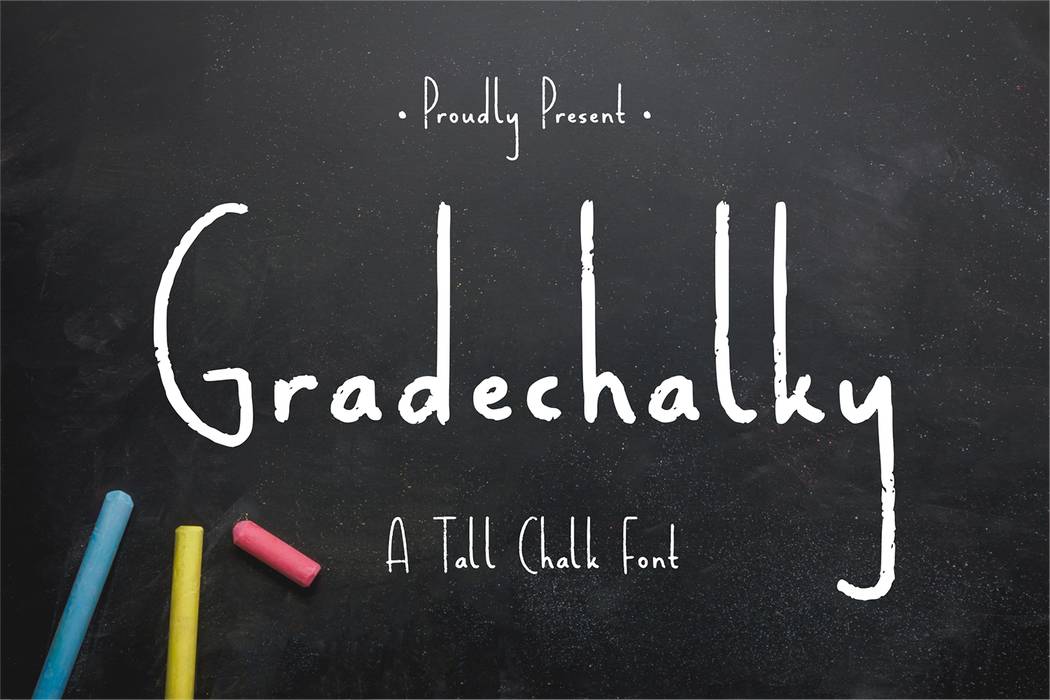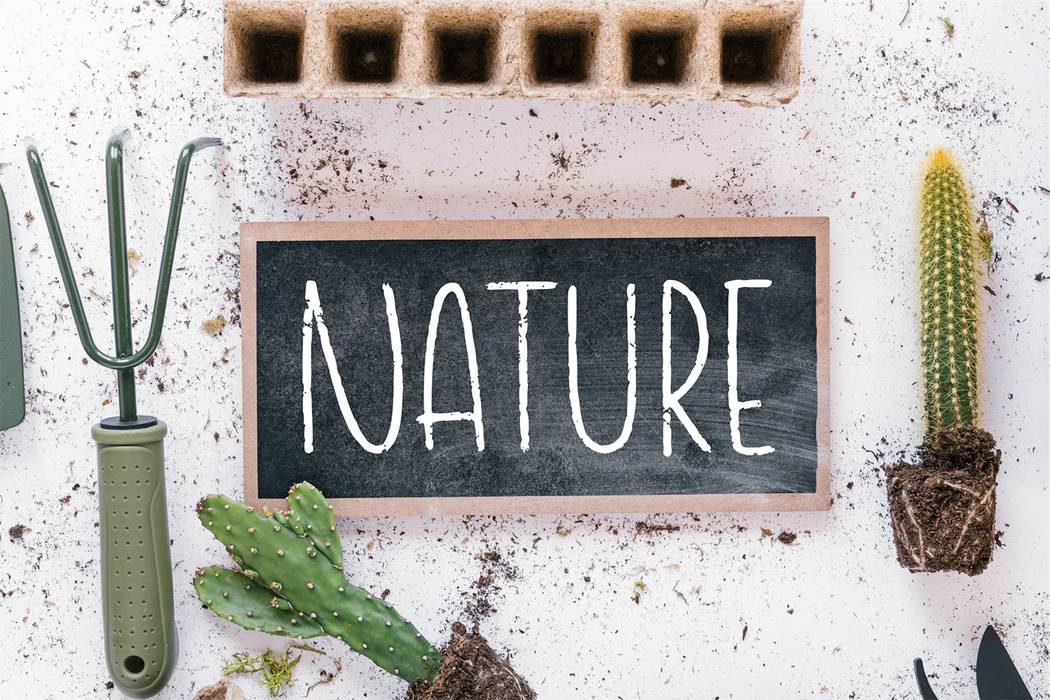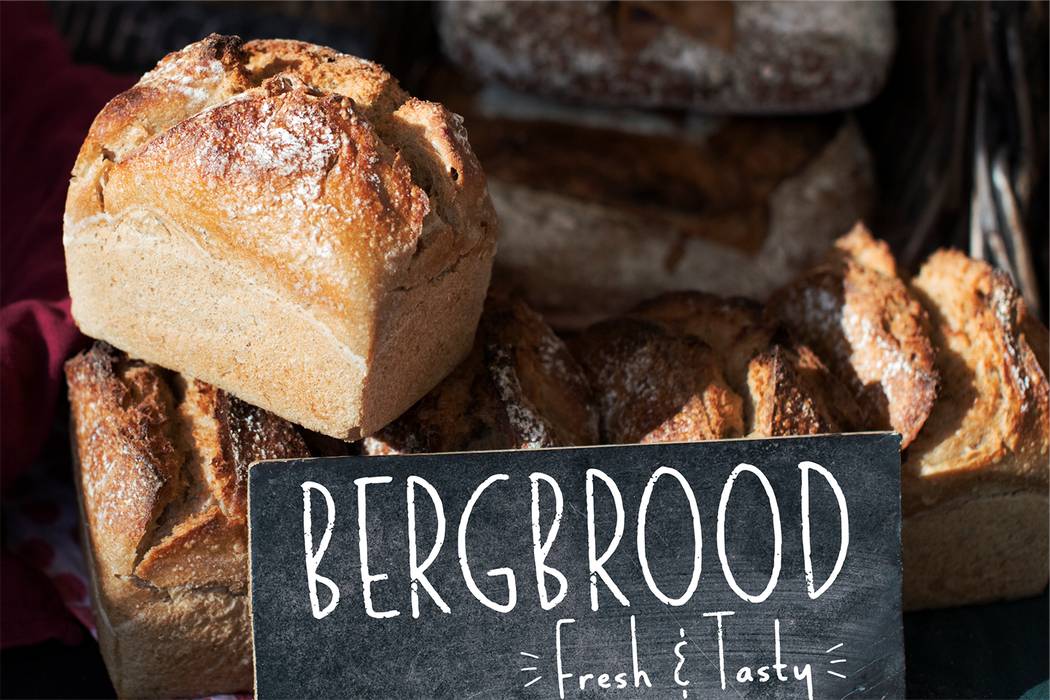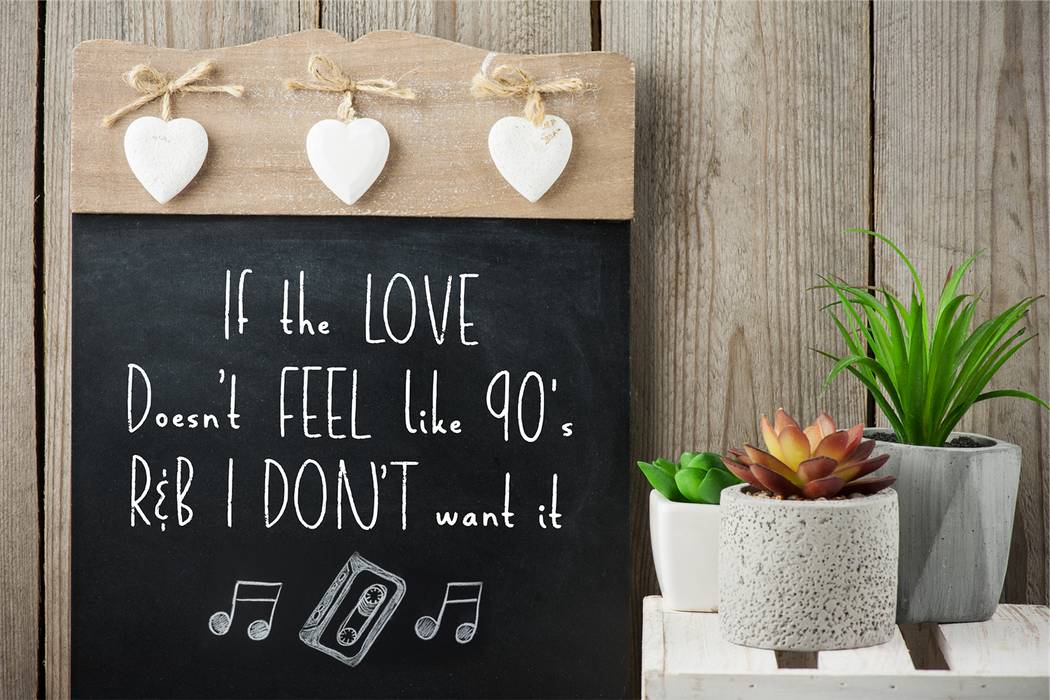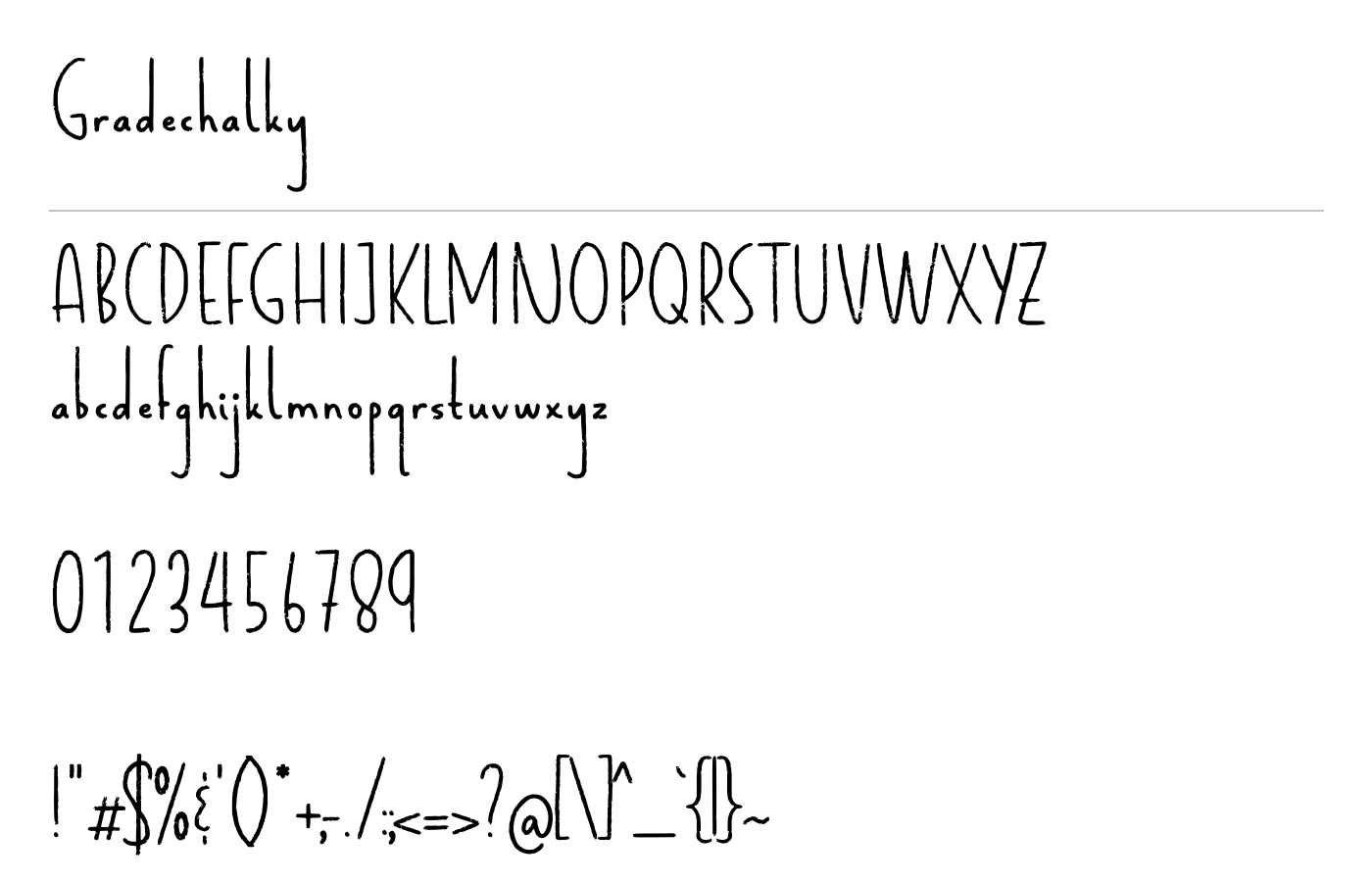
Gradechalky is a playful and casual handwritten sans serif font with a thin, tall, and slightly uneven stroke style that mimics chalk writing on a board. Its narrow letterforms and whimsical characters give it a friendly, approachable vibe, making it ideal for informal designs, school-related projects, or creative branding that seeks a personal touch. This font works well for headlines, logos, and packaging that aim to convey creativity and simplicity with a hand-drawn feel.
Gradechalky Font